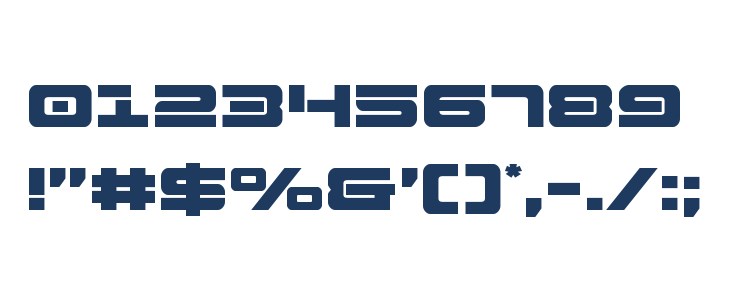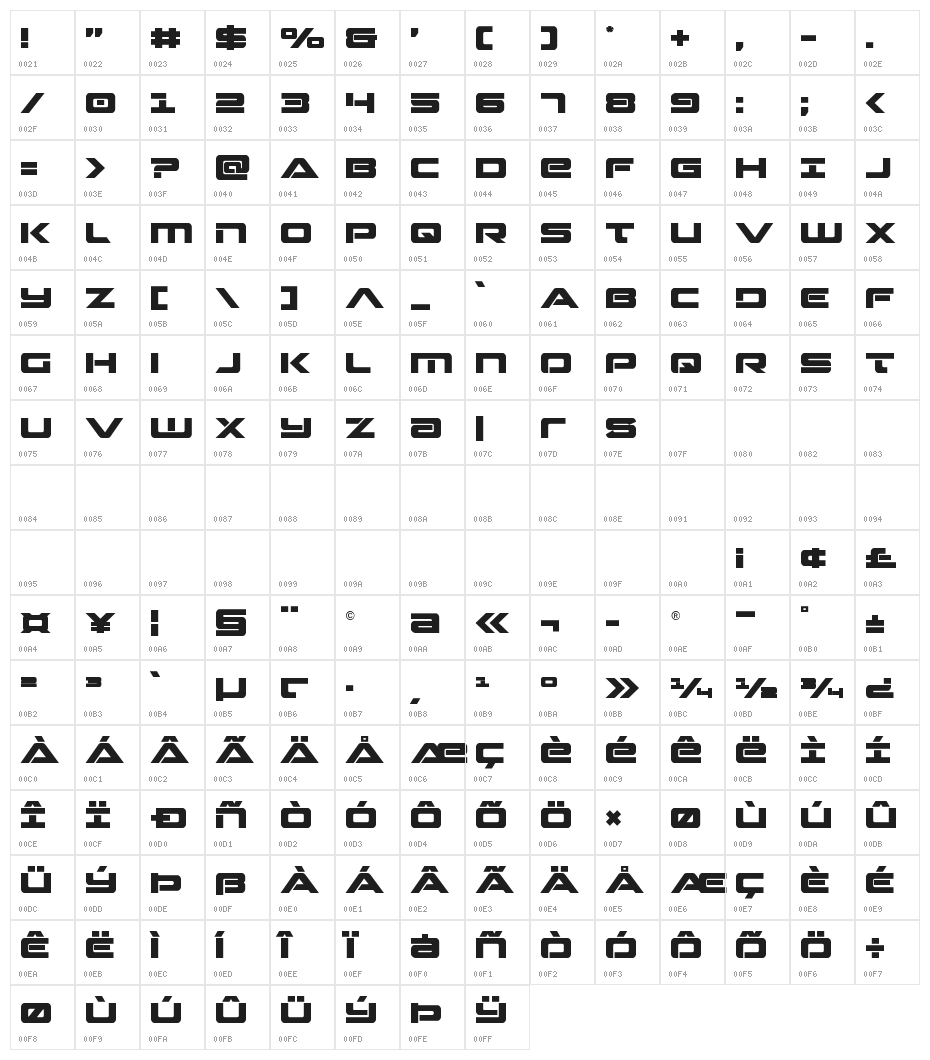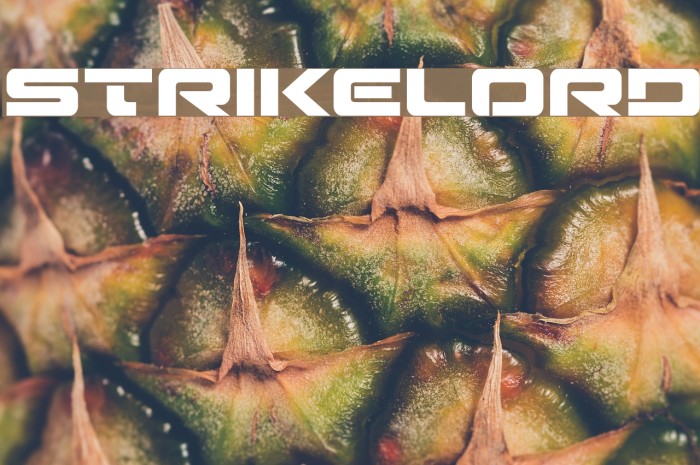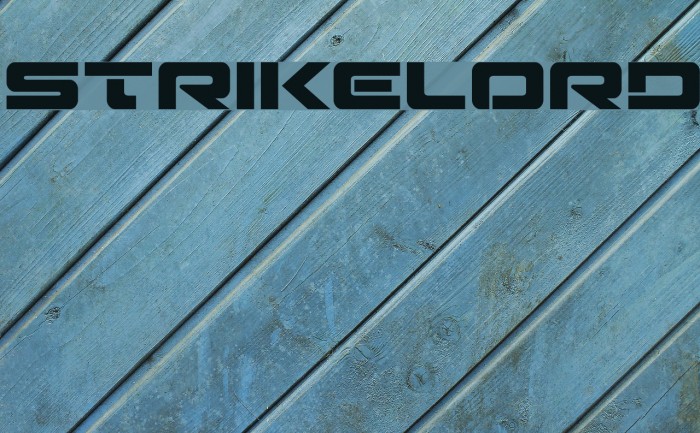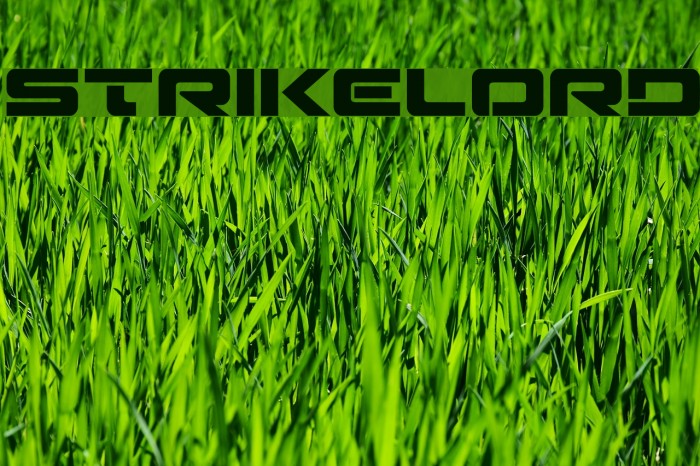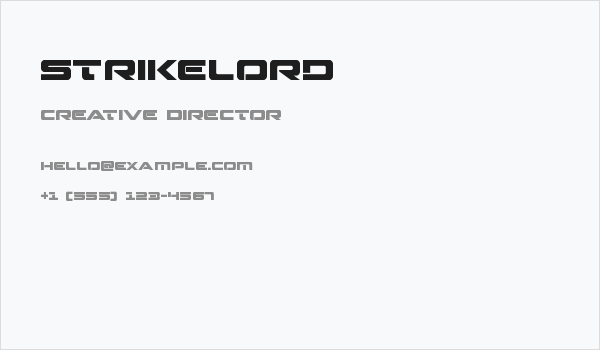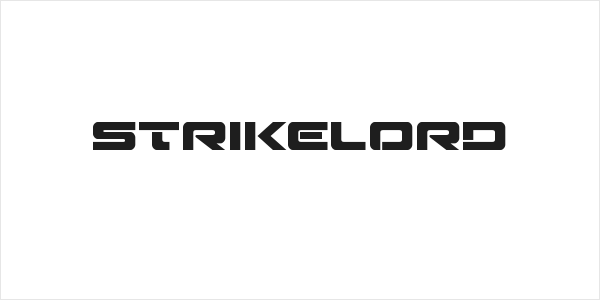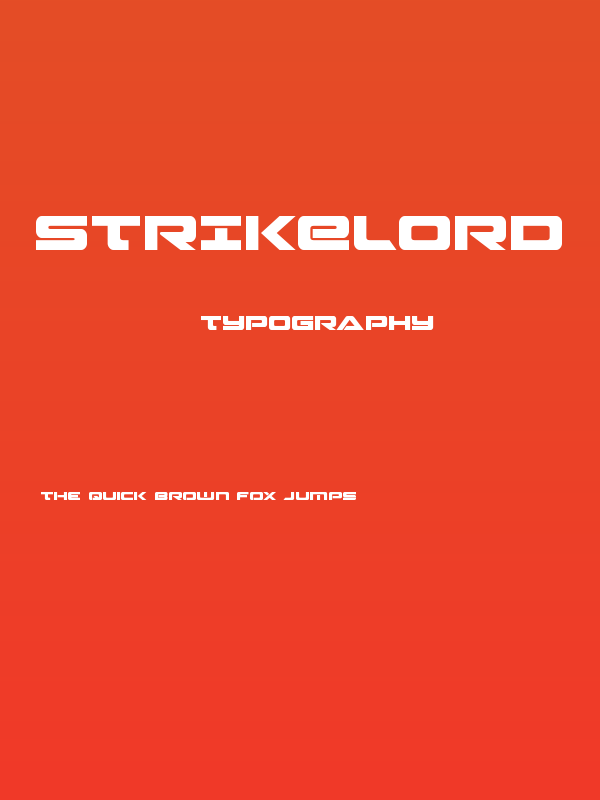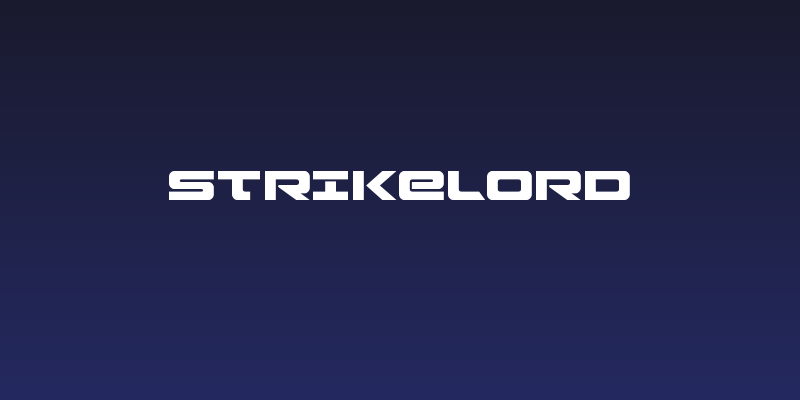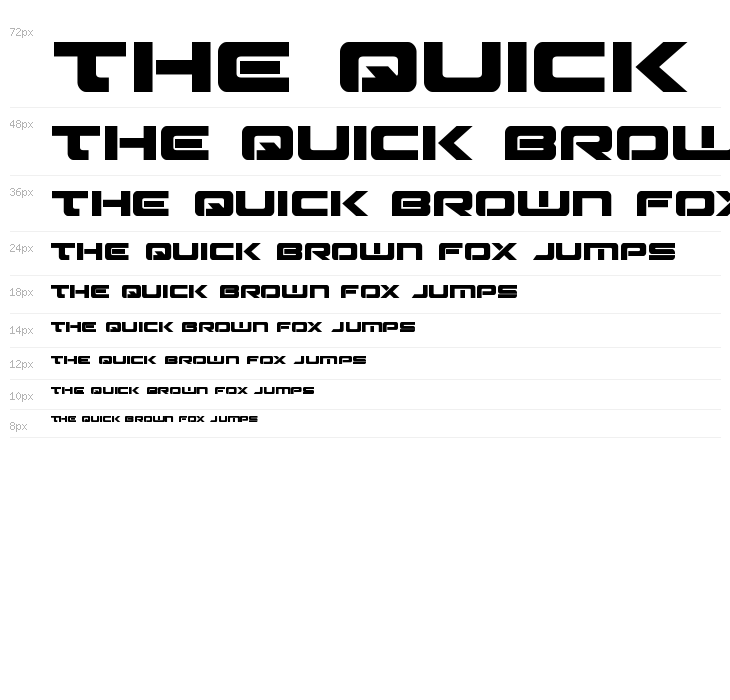
Strikelord Font
Strikelord Description
This font features a bold, futuristic design with a strong geometric structure. The characters are constructed with sharp angles and straight lines, giving it a modern and tech-inspired appearance. The uppercase and lowercase letters maintain a consistent style, emphasizing a sense of uniformity and precision. The numerals and special characters are designed to match the overall aesthetic, ensuring a cohesive look across all text elements. This font is ideal for projects that require a bold and impactful visual presence.
| Proposed Projects | Ideal for technology branding, video game titles, sci-fi movie posters, and modern digital interfaces. |